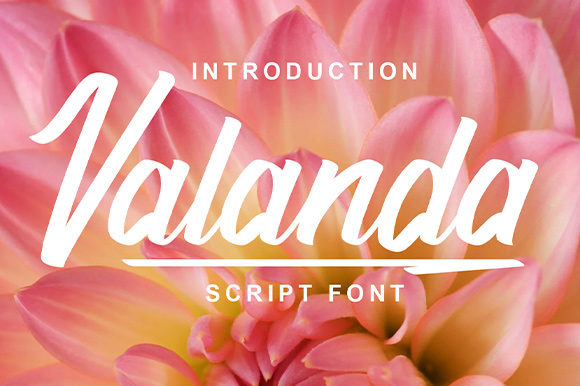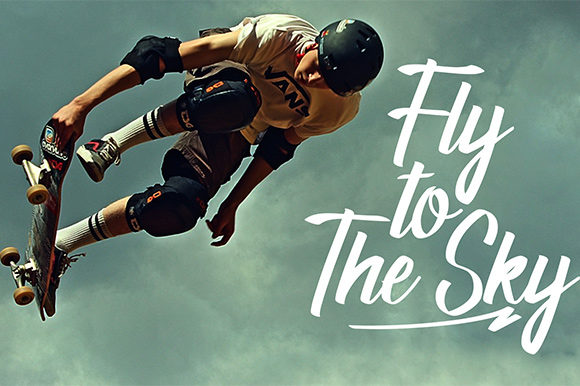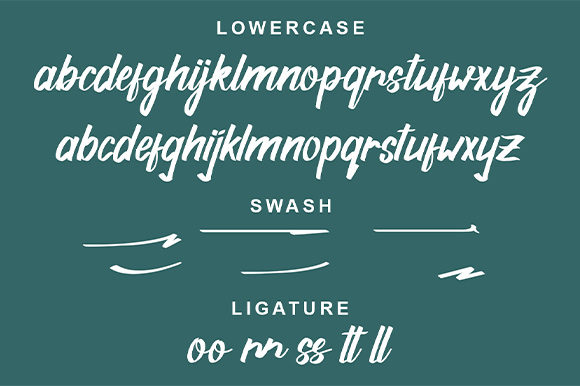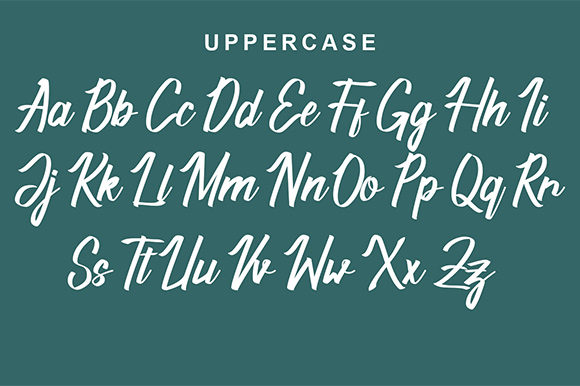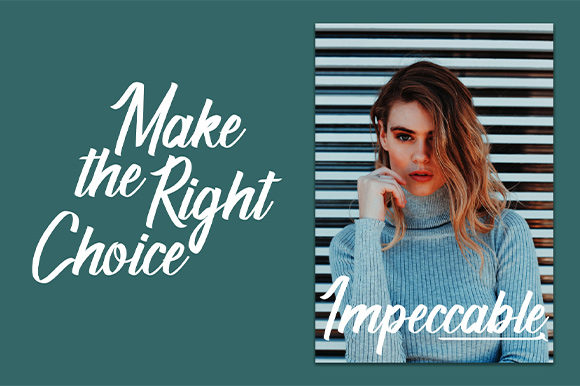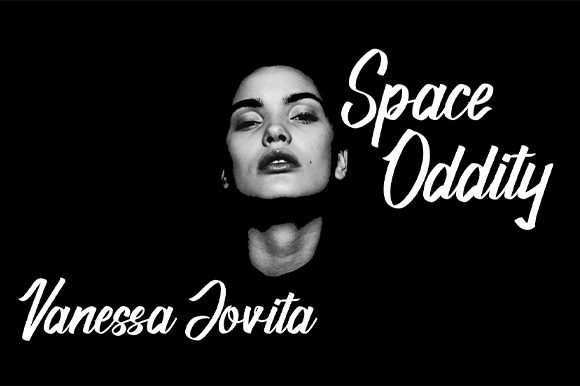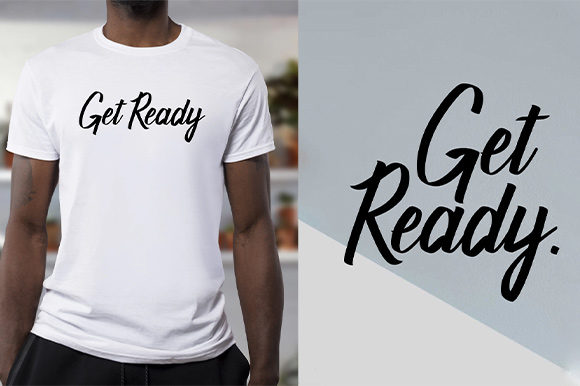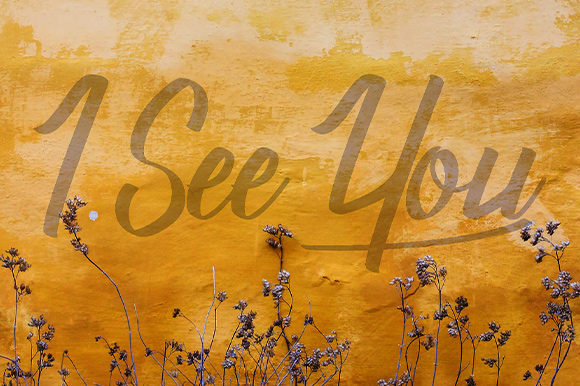
HomeScript FontsValanda Font Script Fonts Valanda Font FacebookXPinterestWhatsApp Valanda Font Poster 2 Valanda Font Poster 3 Valanda Font Poster 4 Valanda Font Poster 5 Valanda Font Poster 6 Valanda Font Poster 7 Valanda Font Poster 8 About Valanda Font Valanda is a stunning script featuring natural curves. Use it to add a unique charm to any design project! DOWNLOAD ON CREATIVE FABRICAThis font is sold and delivered by Creative Fabrica. Font Canyon may earn a commission if you buy through this link. People also explored Belloved Font Gothferatu Font Smile Font Hanna Kiagawa Font Cute Fancy Font Music Font Stellani Font Shaquilla Font 424 0 TagsValanda Font Previous articleDeliagha FontNext articleSmoke Attack Font LEAVE A REPLY Cancel reply Comment: Please enter your comment! Name:* Please enter your name here Email:* You have entered an incorrect email address! Please enter your email address here Website: Save my name, email, and website in this browser for the next time I comment. Personal Use Free Aldenburg Personal Use Free Read more about this font Kellana Personal Use Free Read more about this font Einstaint Personal Use Free Read more about this font Archipellago Personal Use Free Read more about this font BLOG 5 Fonts That Will Dominate Design Trends in 2026 5 Fonts for 2026 That Will Dominate Design Trends Typography plays a critical role in visual communication, and as we look ahead to 2026, it’s... Using Fonts in Digital Marketing: Tips to Strengthen Your Brand Identity Free Fonts Risk: Why Free Fonts Can Be Dangerous for Designers To increase your work productivity, choose the most readable fonts.